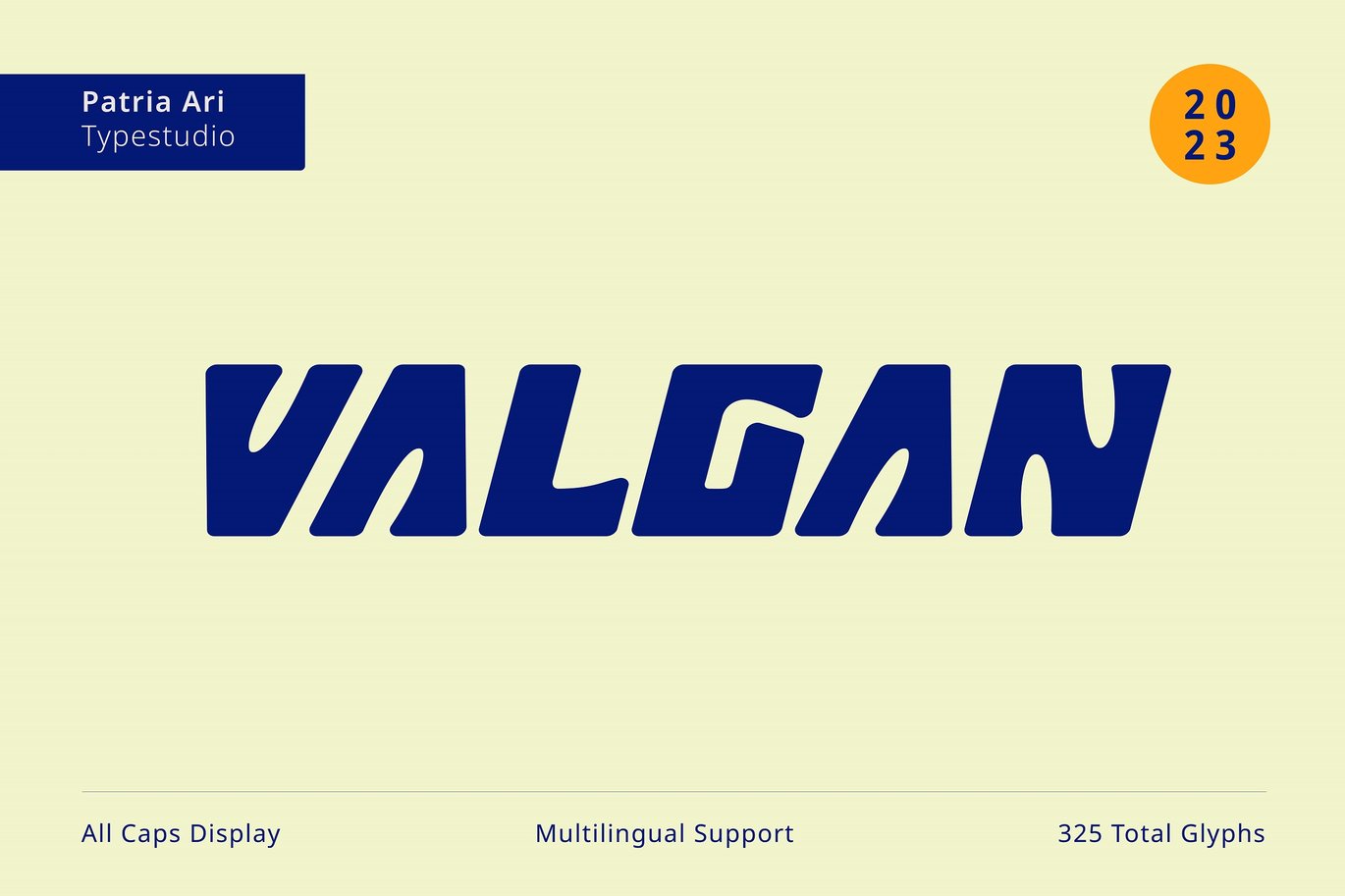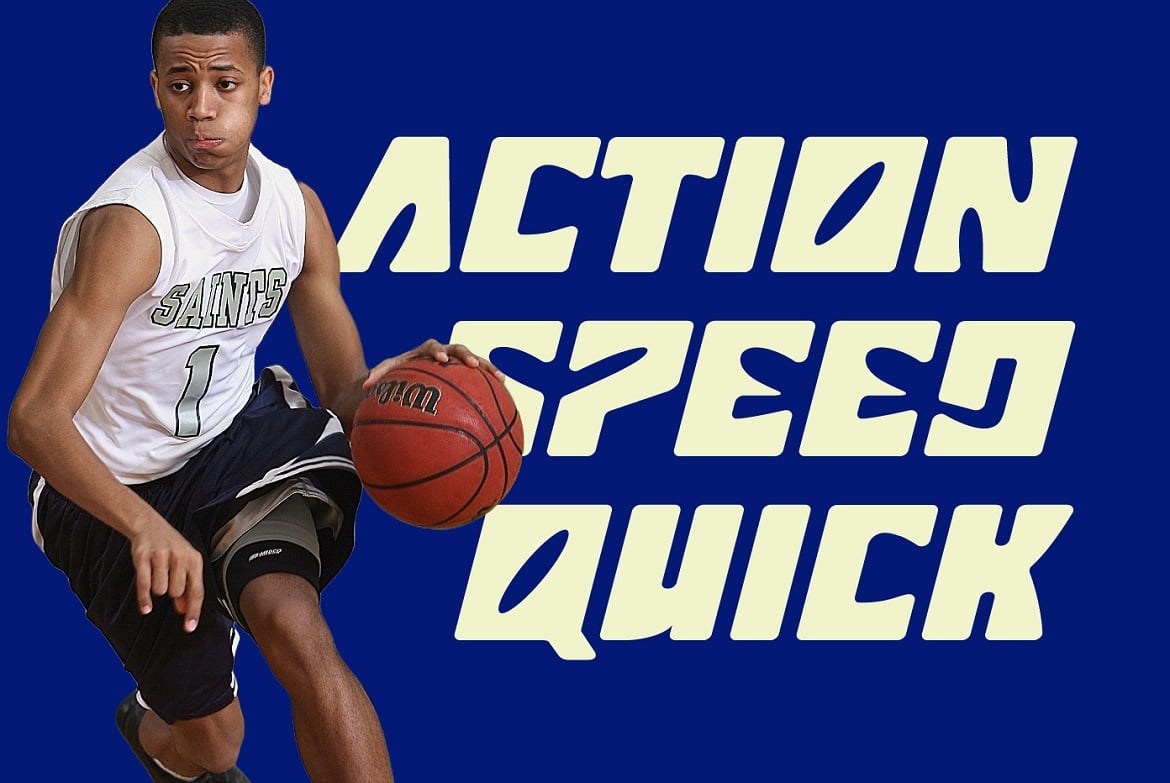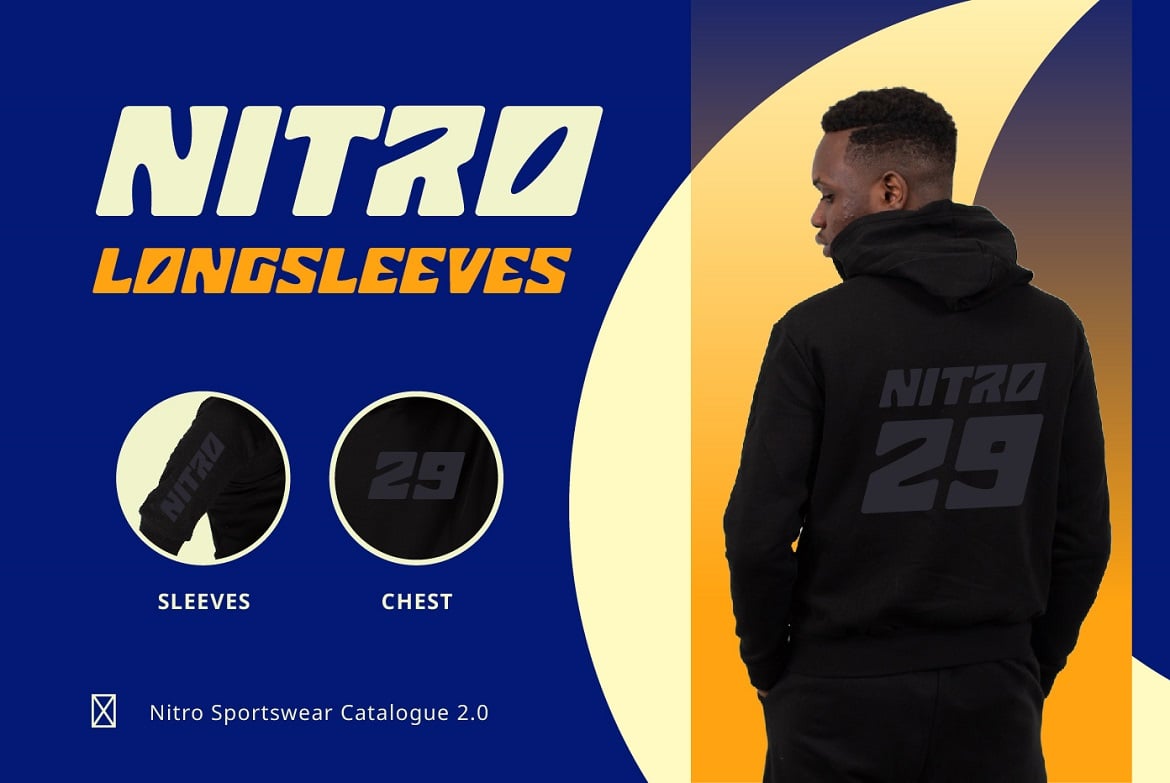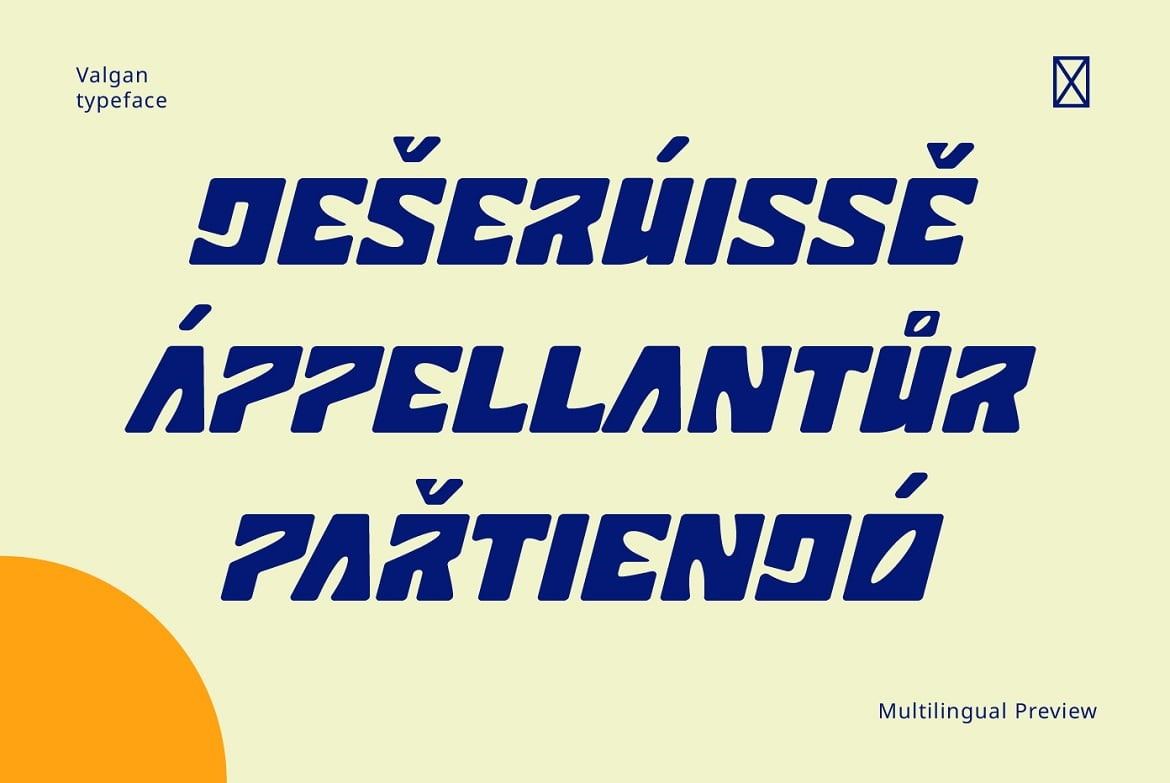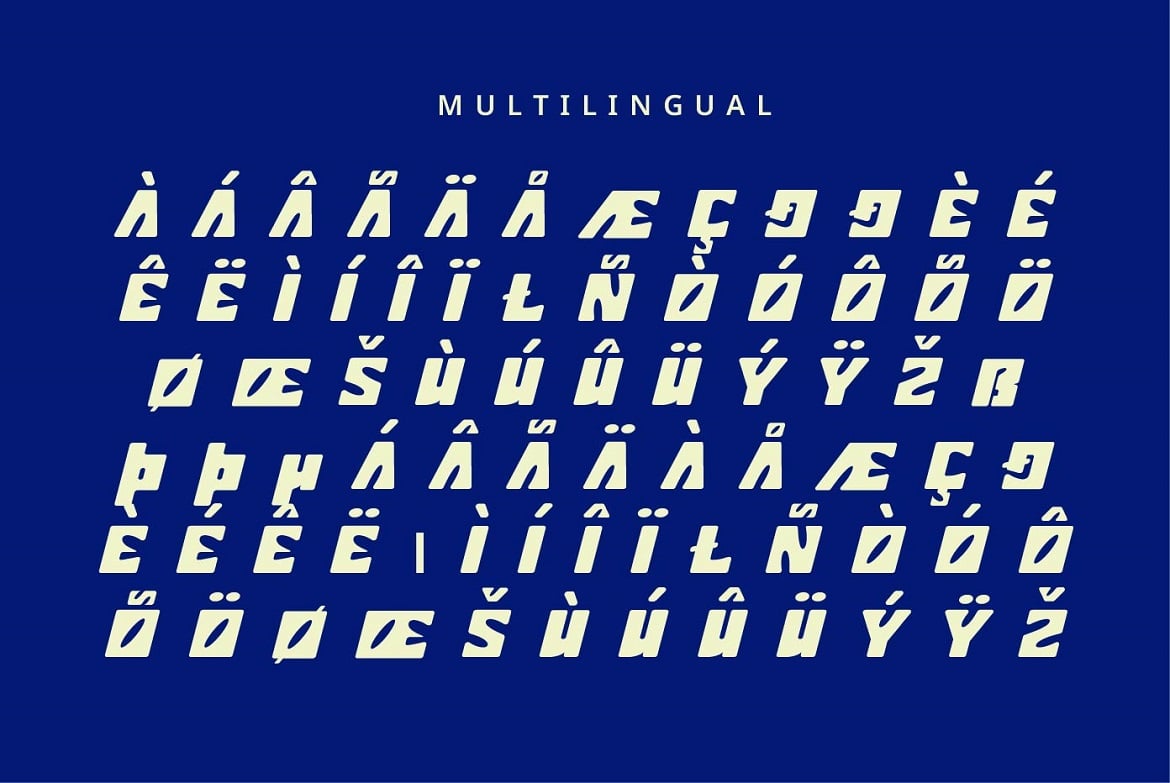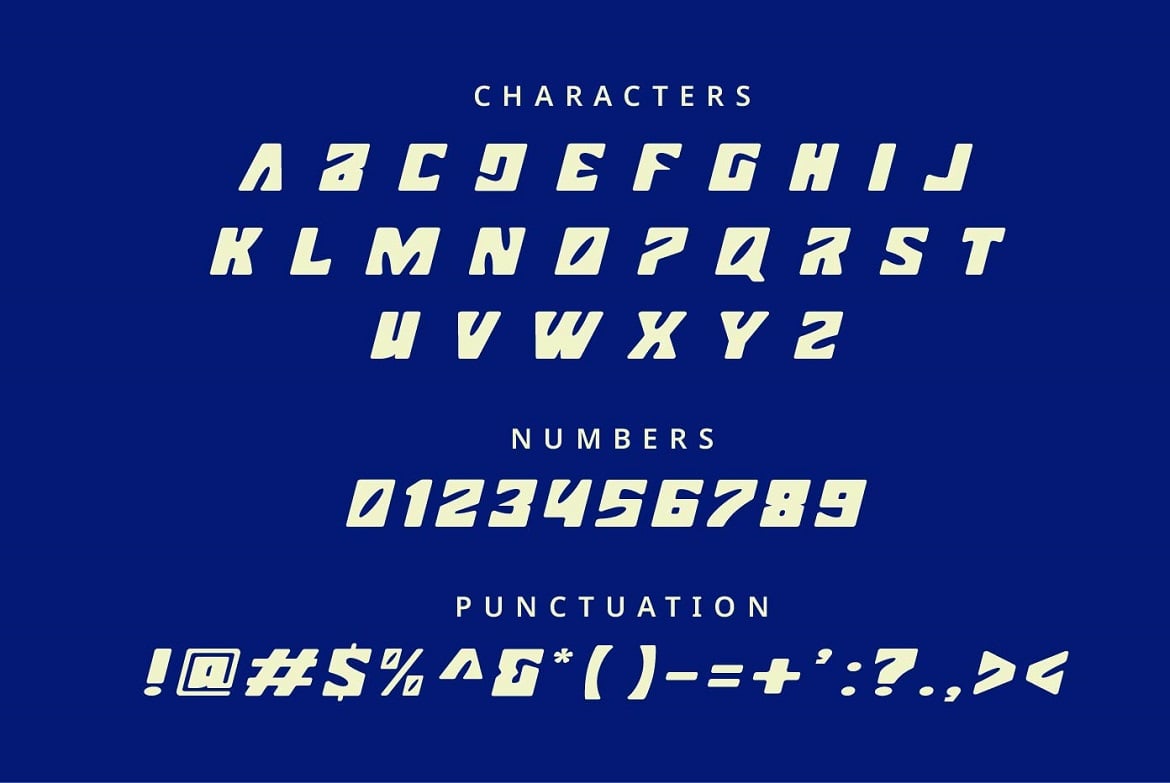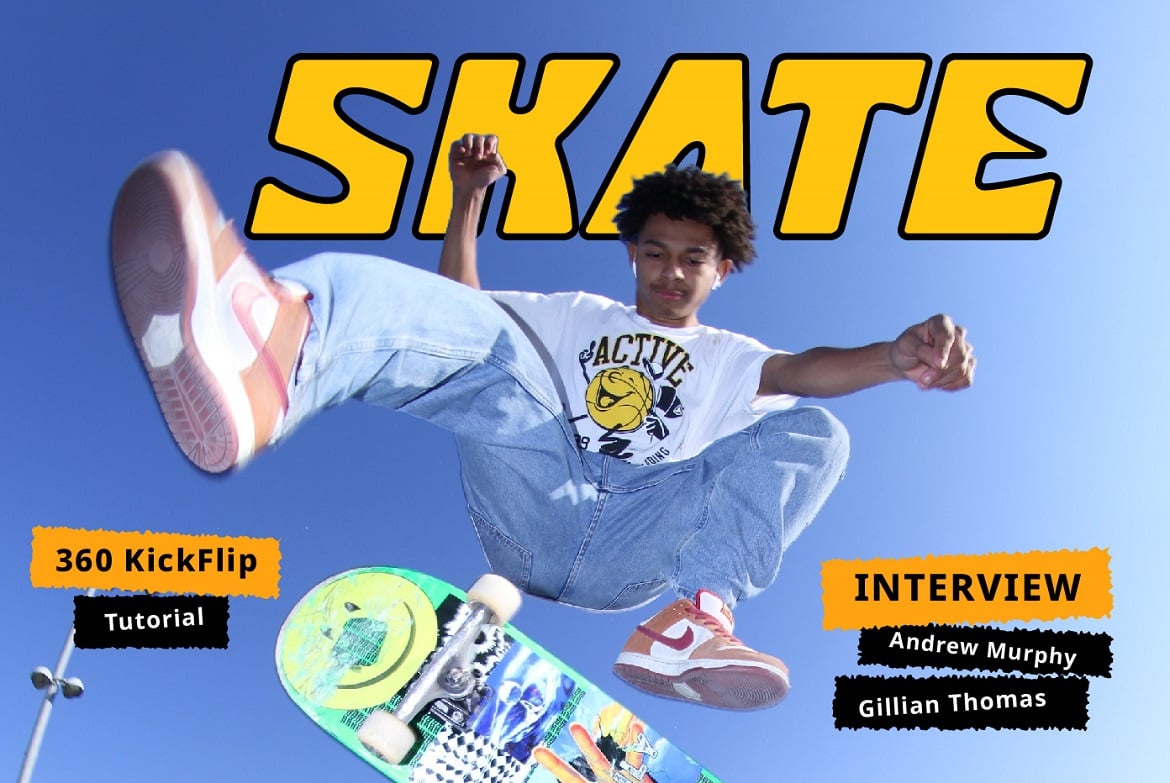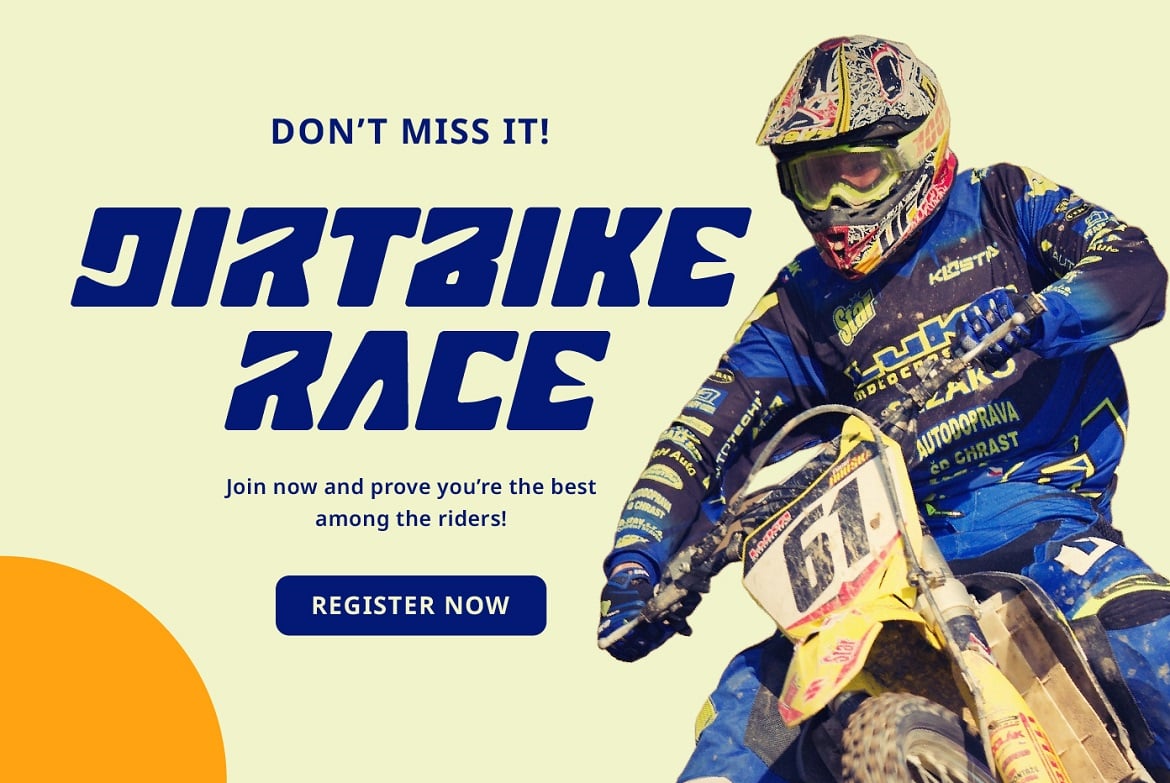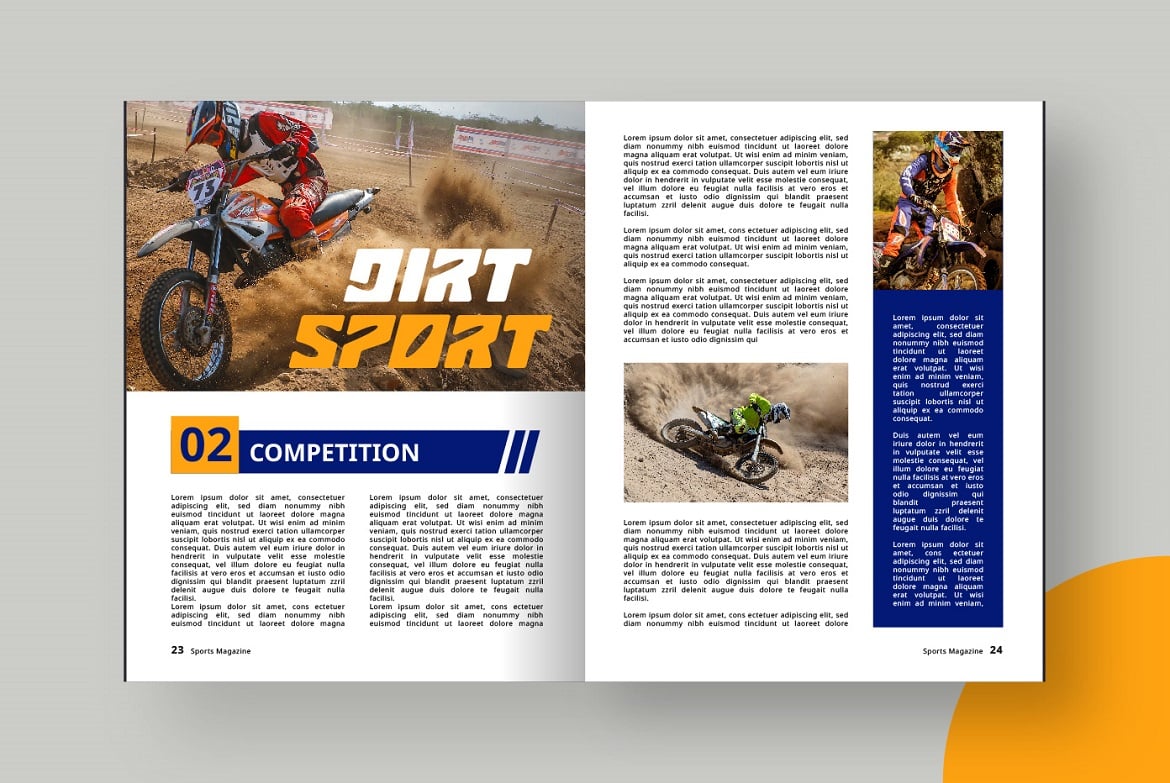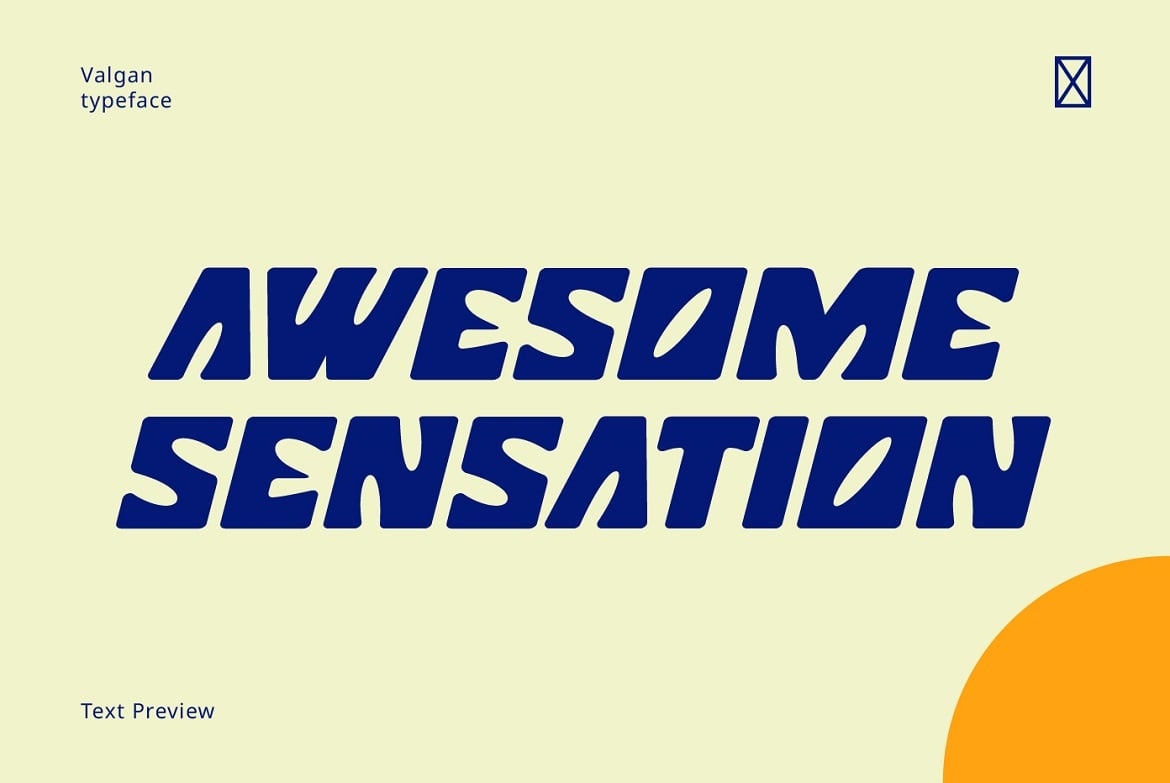
Valgan Jersey Font
Valgan is a bold, slanted, all-capital display font designed to energize sport-themed apparel and related content. Its dynamic style exudes power and motion, making it perfect for team logos, jerseys, posters, and event branding. Versatile and contemporary, Valgan ensures your designs command attention and convey the spirit of competition.
- All Capital
- Punctuation & symbols
- Accented characters